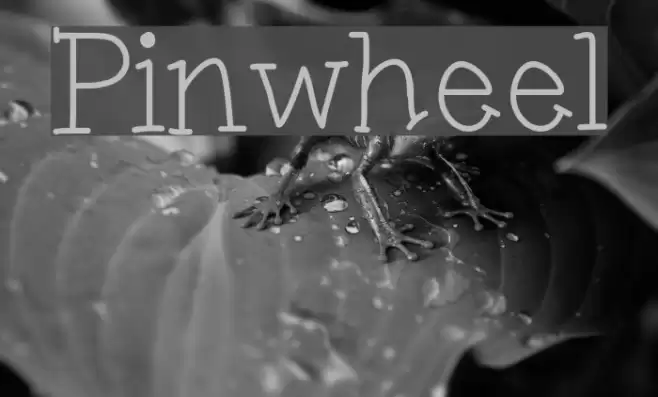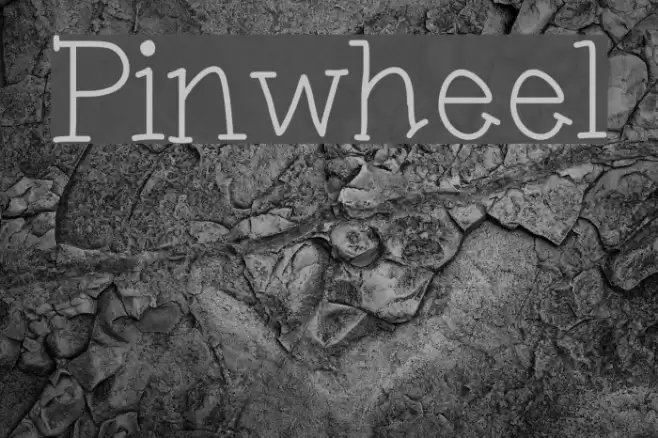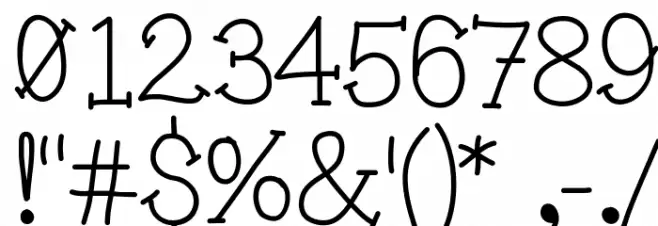
Pinwheel Font
Pinwheel Description
This font features a playful and whimsical design, characterized by its irregular and slightly wavy strokes. The letters have a hand-drawn appearance, with a mix of thick and thin lines that give it a casual and informal feel. The uppercase and lowercase letters maintain a consistent style, with rounded edges and a slightly uneven baseline, adding to its charm. The numerals and special characters follow the same playful aesthetic, making this font suitable for creative and fun projects. Its unique style makes it stand out, perfect for capturing attention in a variety of settings.
A playful, hand-drawn font with irregular, wavy strokes and a whimsical style from Cartoon fonts.
- Proposed Projects: Ideal for children's books, greeting cards, playful branding, and creative posters.
- Use Case: Headlines, Logos, Creative projects